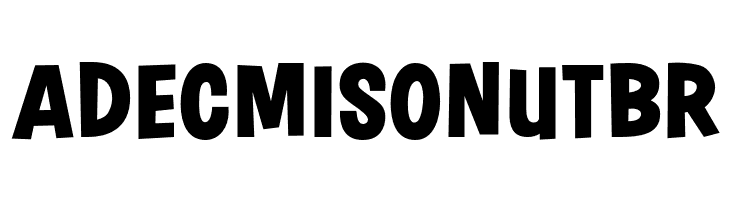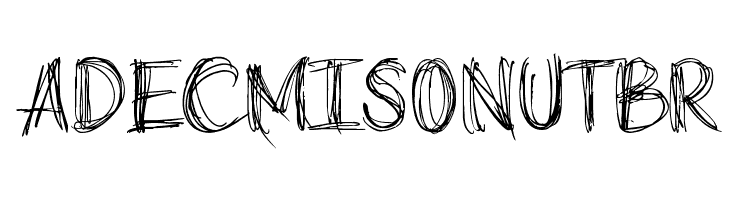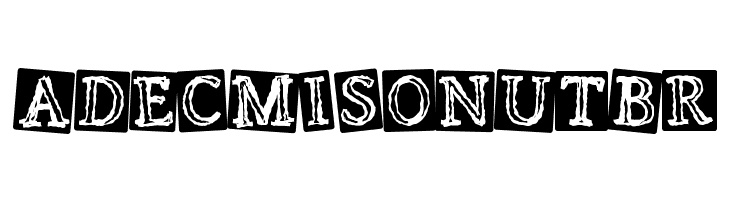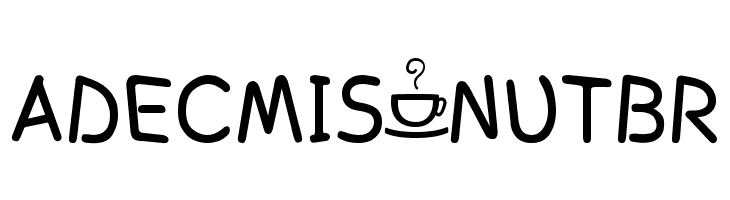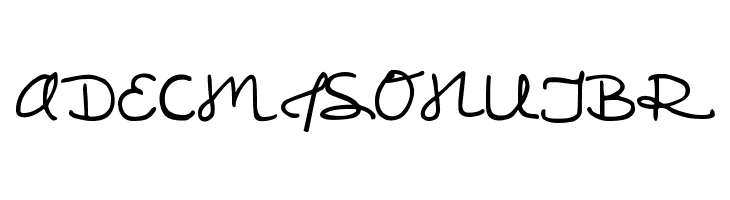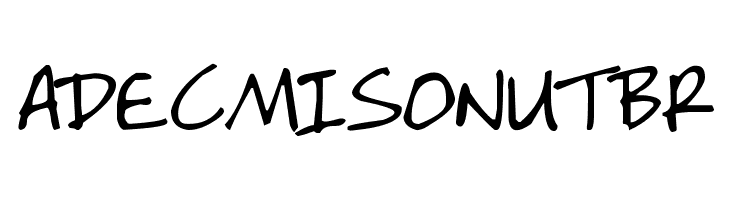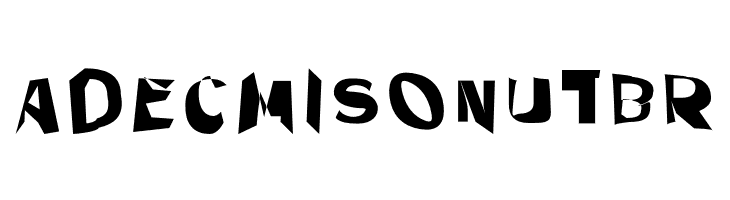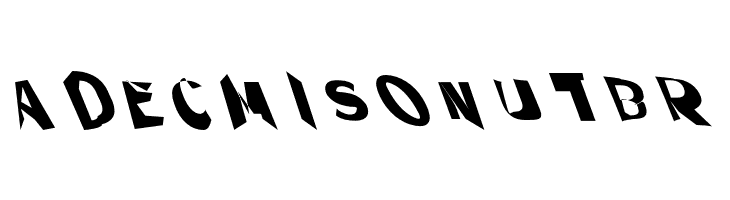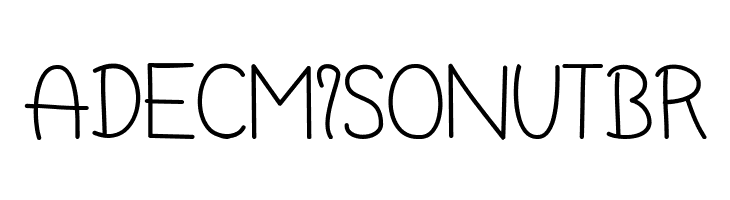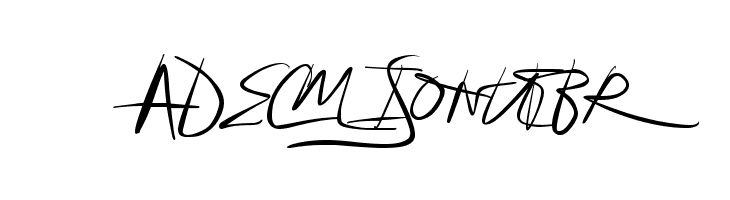
A bold, playful font with irregular, dynamic letterforms.
A bold, distressed font with a punk rock, DIY aesthetic.
A playful, casual handwritten font with fluid, connected strokes.
A playful, handwritten-style font with a casual and dynamic appearance.
A chaotic and expressive handwritten font with overlapping strokes.
A playful, hand-drawn font with a sketch-like, whimsical appearance.
A bold, hand-drawn font with an edgy and dynamic style.
A tall, narrow, hand-drawn font with a whimsical and playful style.
A bold, distressed font with a vintage cinema vibe.
A bold, graffiti-inspired font with a playful, hand-drawn style.
A bold, staggered font with a rugged and edgy style.
A bold, jagged font with a hand-drawn, spooky aesthetic.
A bold, playful font with a hand-drawn, rough-edged style.
A whimsical, hand-drawn font with a playful and artistic style.
A playful, hand-drawn font with irregular strokes and a whimsical style.
A playful, hand-drawn font with unique striped patterns in some characters.
A bold, brush-stroke font with a raw, expressive style.
A quirky, hand-drawn font with a playful and whimsical style.
A bold, hand-drawn font with a playful, outlined style and rough texture.
A thin, hand-drawn font with a light, airy feel and subtle irregularities.
A whimsical, hand-drawn font with thin, uneven strokes and a playful design.
A playful, bold font with characters in tilted, irregular boxes.
A bold, hand-drawn font with expressive and uneven strokes.
A sketch-like, hand-drawn font with overlapping lines and a dynamic, edgy appearance.
A whimsical, hand-drawn font with thin, uneven strokes and a playful style.
A casual, handwritten font with smooth, flowing strokes and a friendly appearance.
A bold, jagged font with a punk rock, graffiti-inspired style.